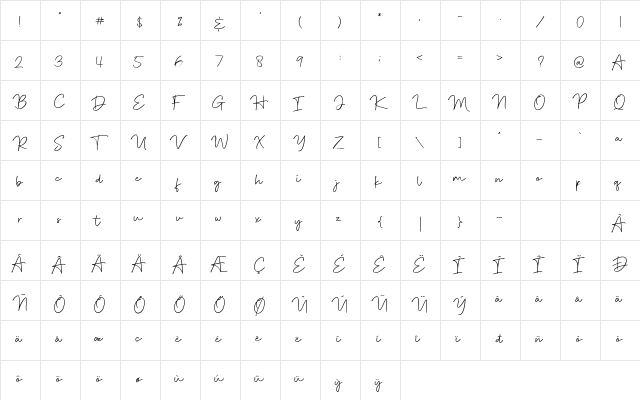
Starfight Regular
| Designer | Ade Santani |
Design Context for Starfight Typeface
Starfight is a composed and adaptable typeface that performs quietly and consistently across a wide range of design contexts.